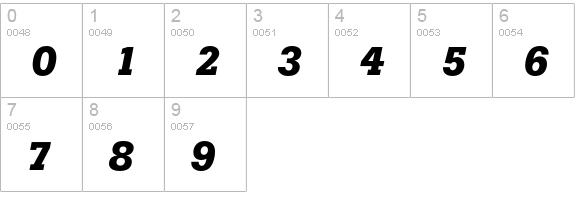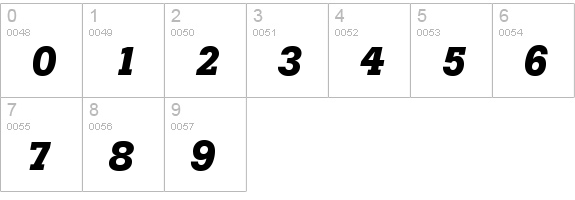
Boton BQ Bold Italic Font Details
Boton BQ Bold Italic is a strong, high-contrast, italic variant in the Boton typeface family \xE2\x80\x94 well suited to headlines, attention-grabbing titles, and strong calls-to-action.
Boton BQ Bold Italic is a striking and versatile font that exudes elegance and sophistication. Its bold and italic design adds a touch of flair to any project, making it perfect for headings, titles, and other prominent text. The sleek curves and sharp angles of this font create a modern and stylish look that is sure to make a statement. What sets Boton BQ Bold Italic apart is its unique combination of boldness and elegance, making it a standout choice for designers looking to make an impact. Whether you're designing a website, creating marketing materials, or working on a branding project, Boton BQ Bold Italic is sure to impress. Best of all, Boton BQ Bold Italic is completely free to download at FontsMarket.com. This means you can add this stunning font to your collection without breaking the bank. Don't miss out on the opportunity to elevate your designs with the bold and beautiful Boton BQ Bold Italic font. Download it today and see the difference it can make in your projects.